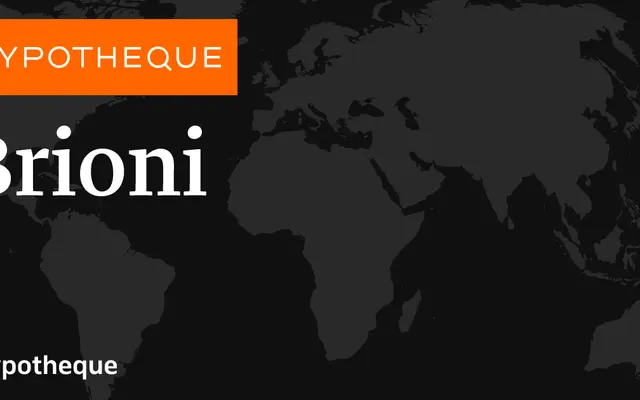
A humanist serif system from Typotheque split across two optical sizes, covering six weights with italics throughout.
The family divides into Brioni for display settings and Brioni Text for body copy, each running from Thin to Bold with matching italics. The two-size system reflects a considered approach to optical scaling rather than simply scaling a single master. Well-suited to editorial and publishing work where visual consistency across headlines and running text is required.
Brioni is a humanist serif with a clear text-oriented design system, offered in two optical sizes (display and text), suggesting careful attention to reading performance across sizes typical of humanist serif traditions.